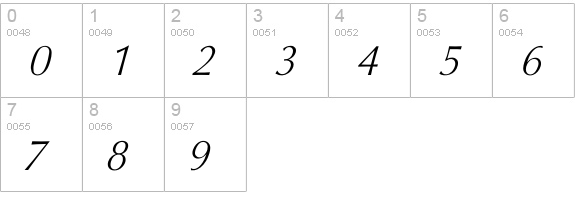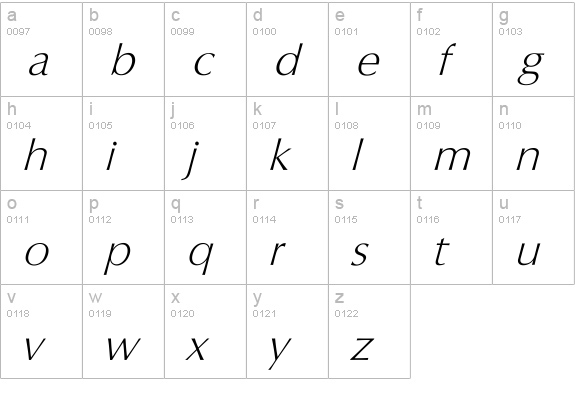
Introducing the Icoluku Xlight font, a stunning typeface that effortlessly combines elegance and modernity. With its sleek and sophisticated design, this font is perfect for adding a touch of sophistication to any project. The Icoluku Xlight font features a unique and stylish geometric structure, with thin and delicate strokes that exude a sense of refinement and class. Its clean and minimalist aesthetic makes it versatile and suitable for a wide range of applications, from branding and logos to editorial design and web content. What sets the Icoluku Xlight font apart is not only its exceptional visual appeal but also its availability as a free download. Yes, you read that right - this extraordinary font can be obtained free of charge at FontsMarket.com. This means that you can enjoy the beauty and versatility of the Icoluku Xlight font without any financial constraints. Whether you are a professional designer or a creative enthusiast, the Icoluku Xlight font is sure to become a valuable asset in your typography toolbox. Its seamless compatibility with various design software and platforms ensures a hassle-free experience, allowing you to effortlessly bring your creative visions to life. So why wait? Take advantage of this amazing opportunity to enhance your designs with the Icoluku Xlight font. Download it for free at FontsMarket.com and unlock a world of endless design possibilities.